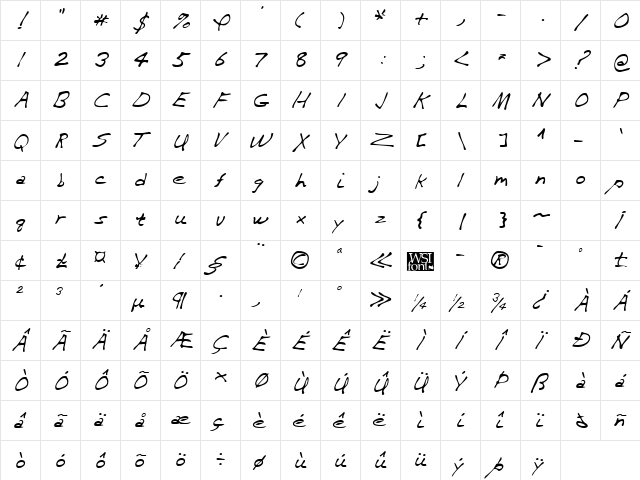
WilsonsHand Regular
Design Context for WilsonsHand Typeface
WilsonsHand brings a calligraphic fluidity to the page — its connecting strokes and expressive curves give it an unmistakably human quality.
Font Pairing: Combine WilsonsHand with a simple geometric sans for maximum contrast — the tension between flowing curves and clean structure is a classic typographic pairing.
Pro Tip: Use WilsonsHand for short runs of text — names, titles, or taglines. Extended body copy in script faces tires the eye quickly.